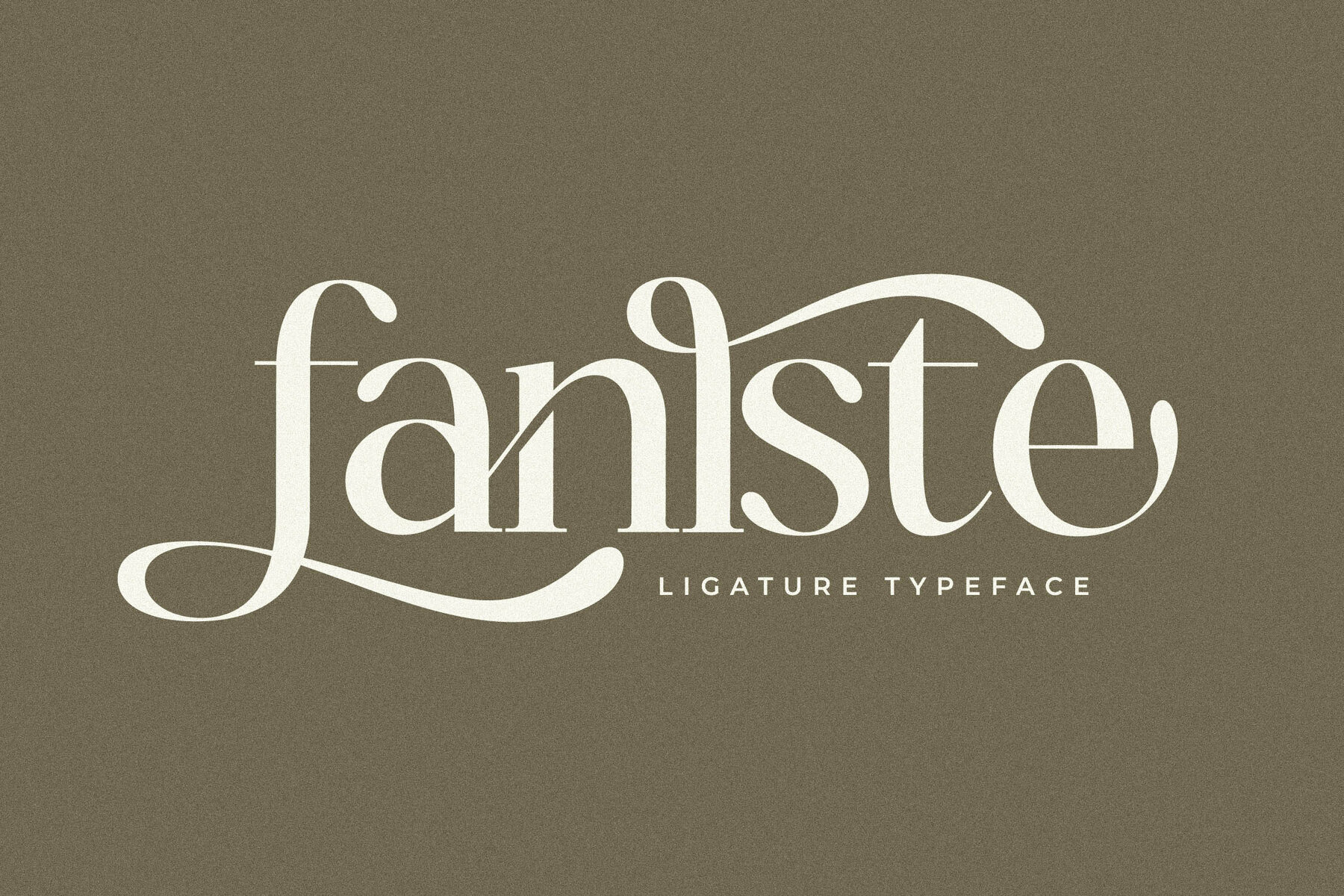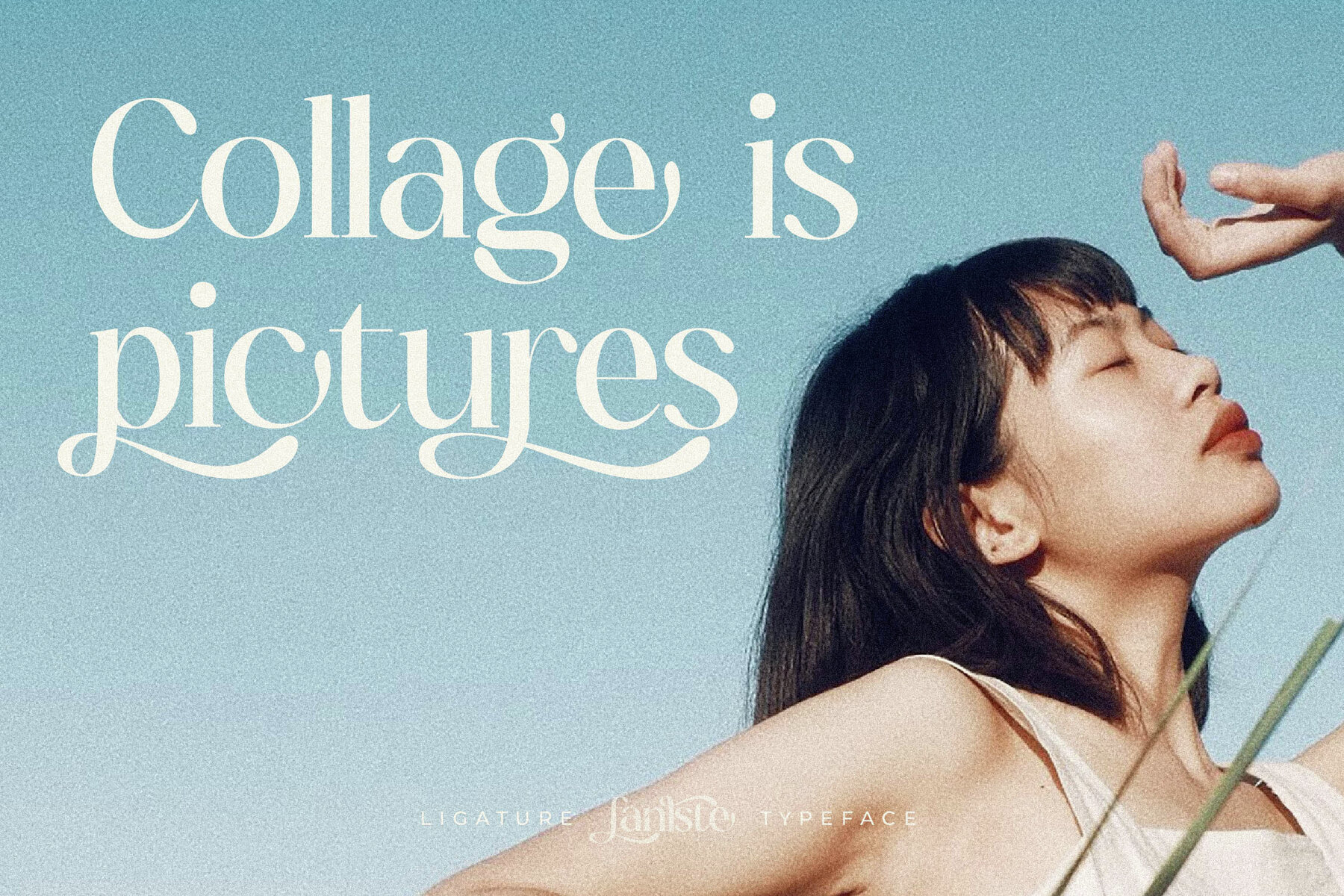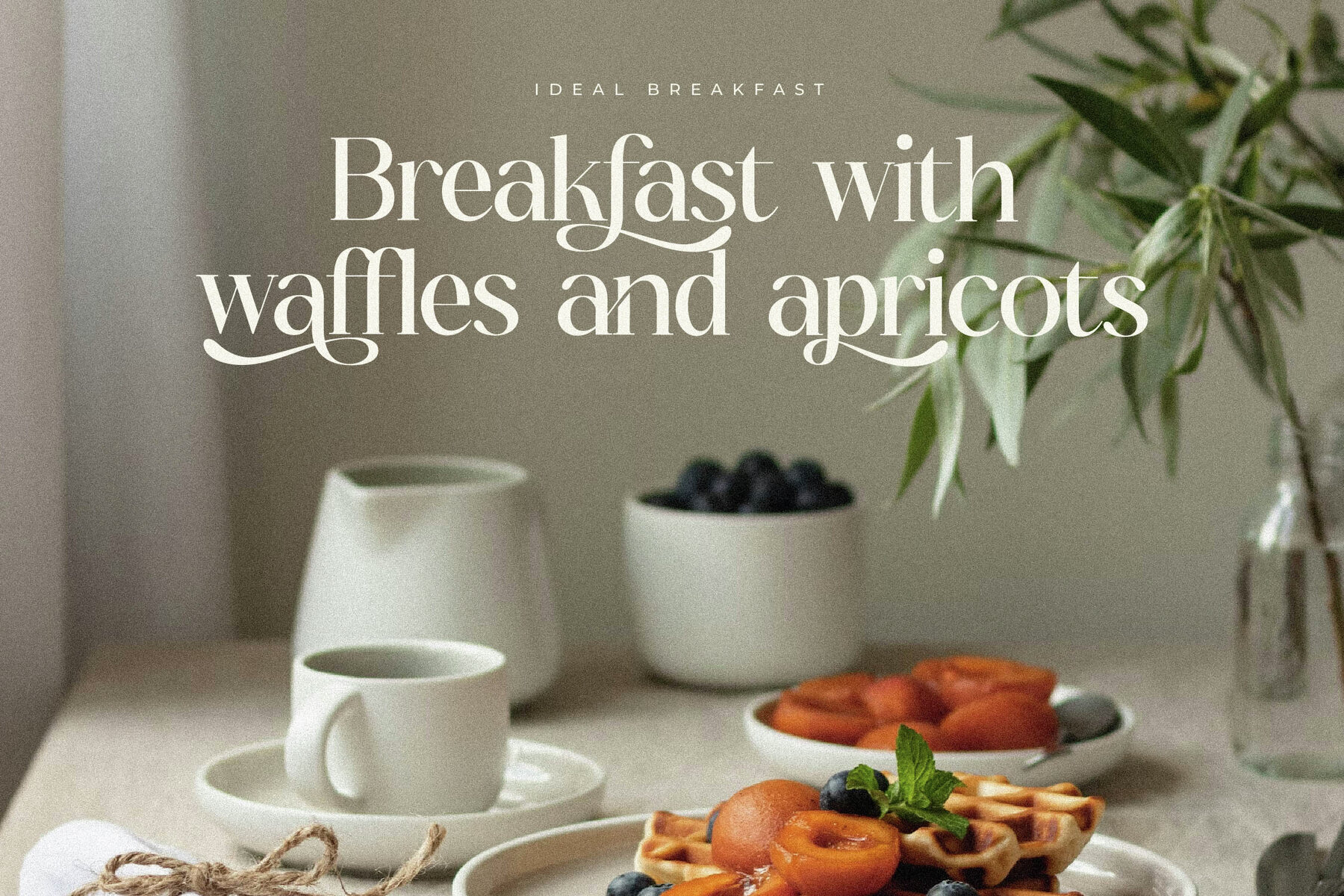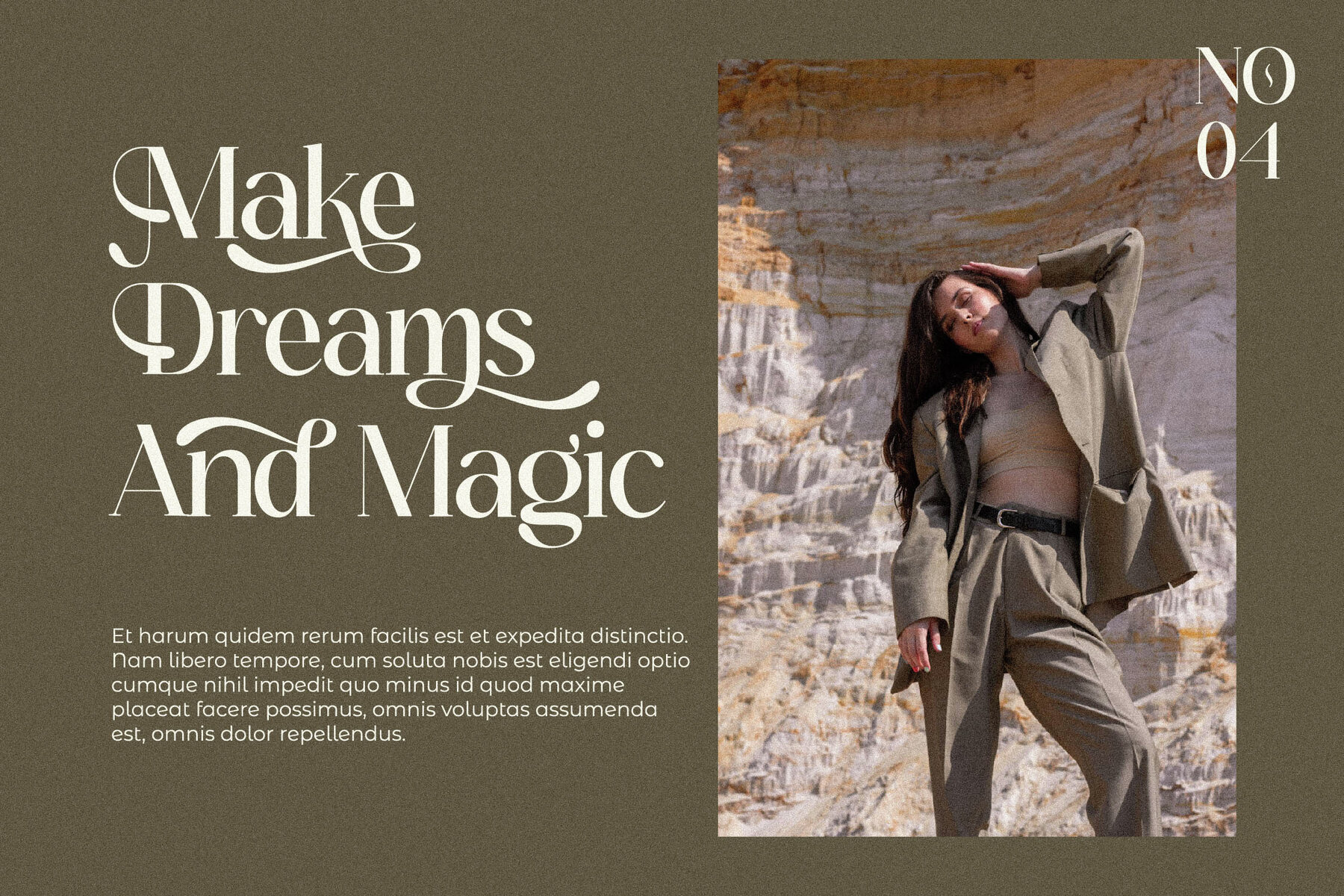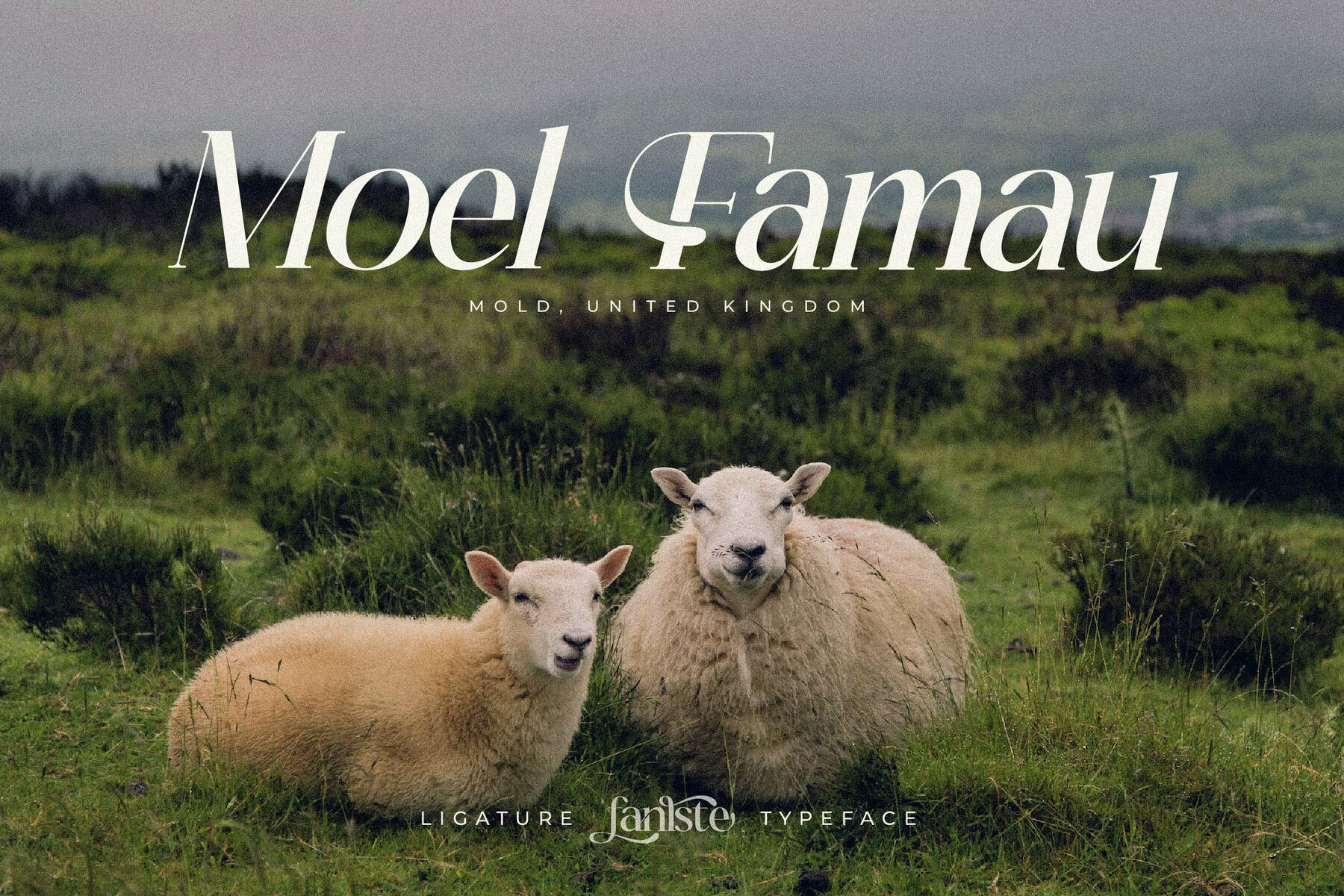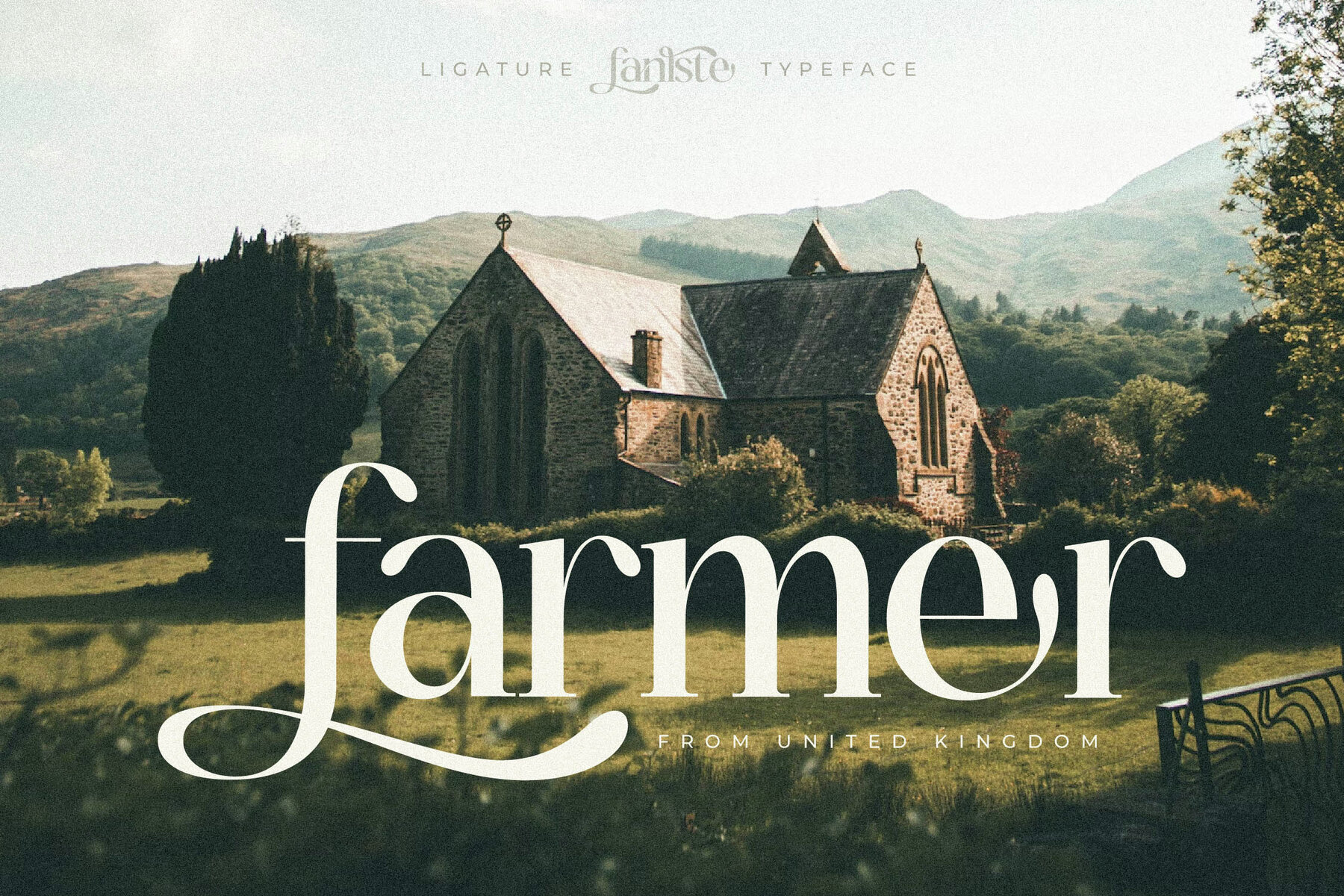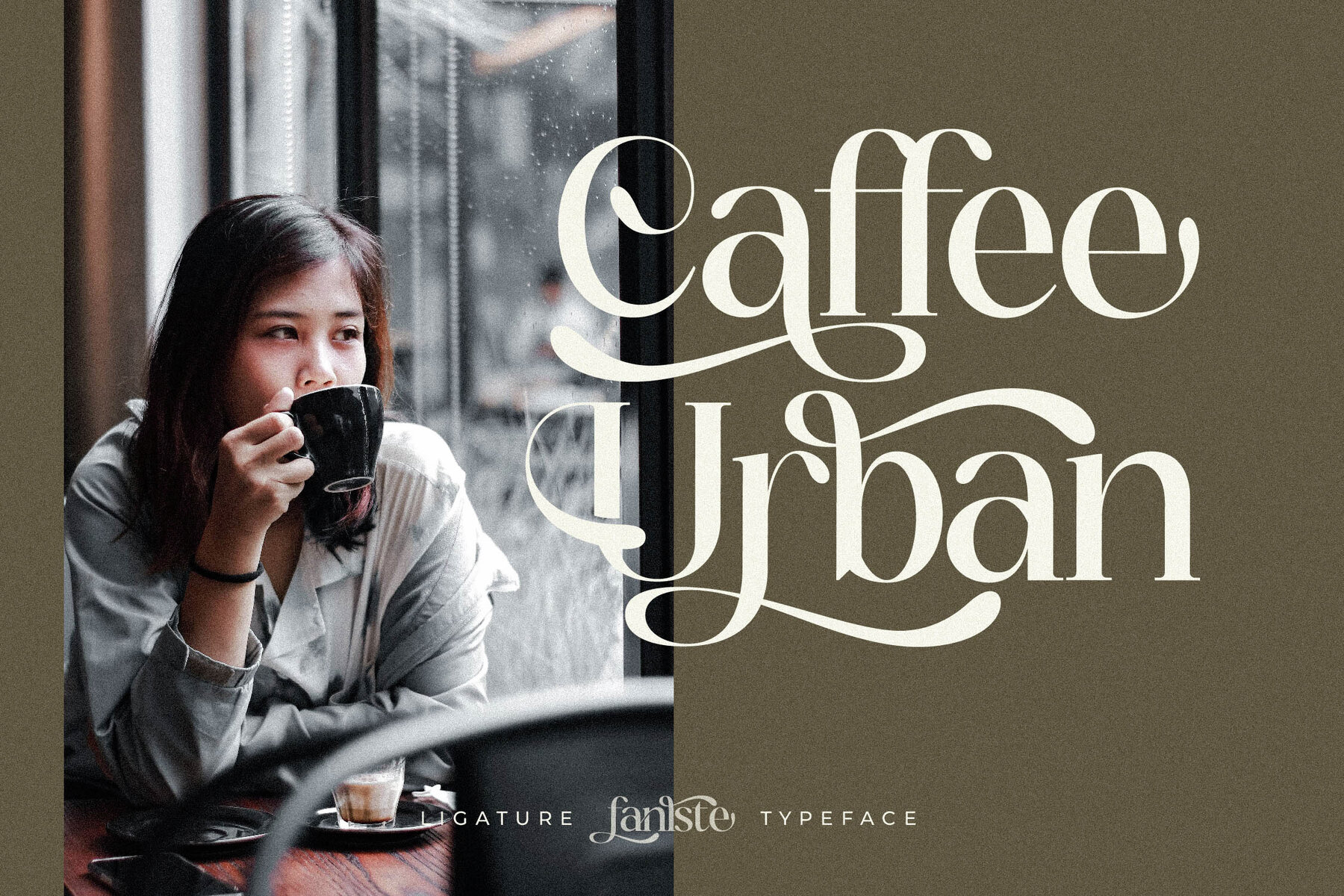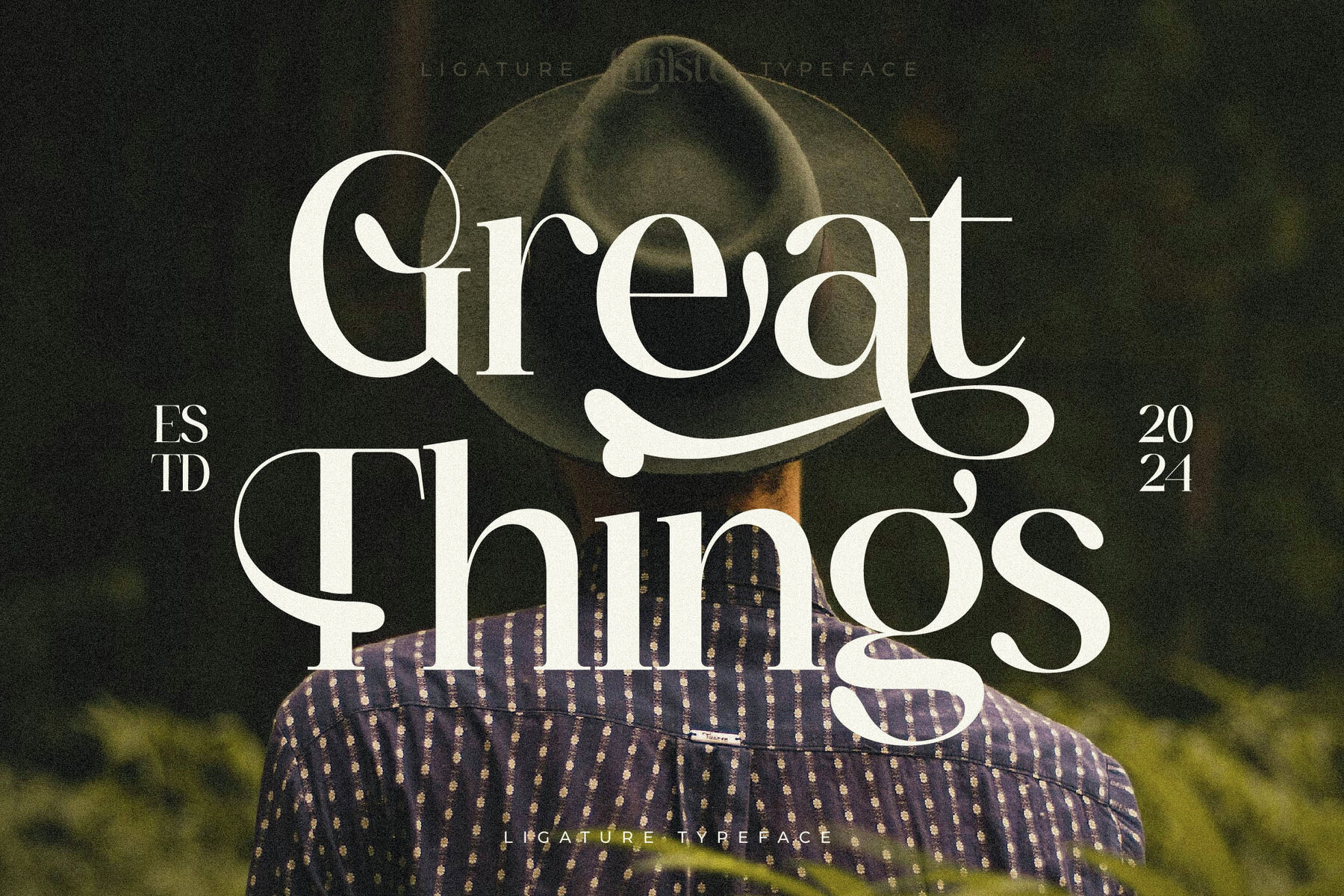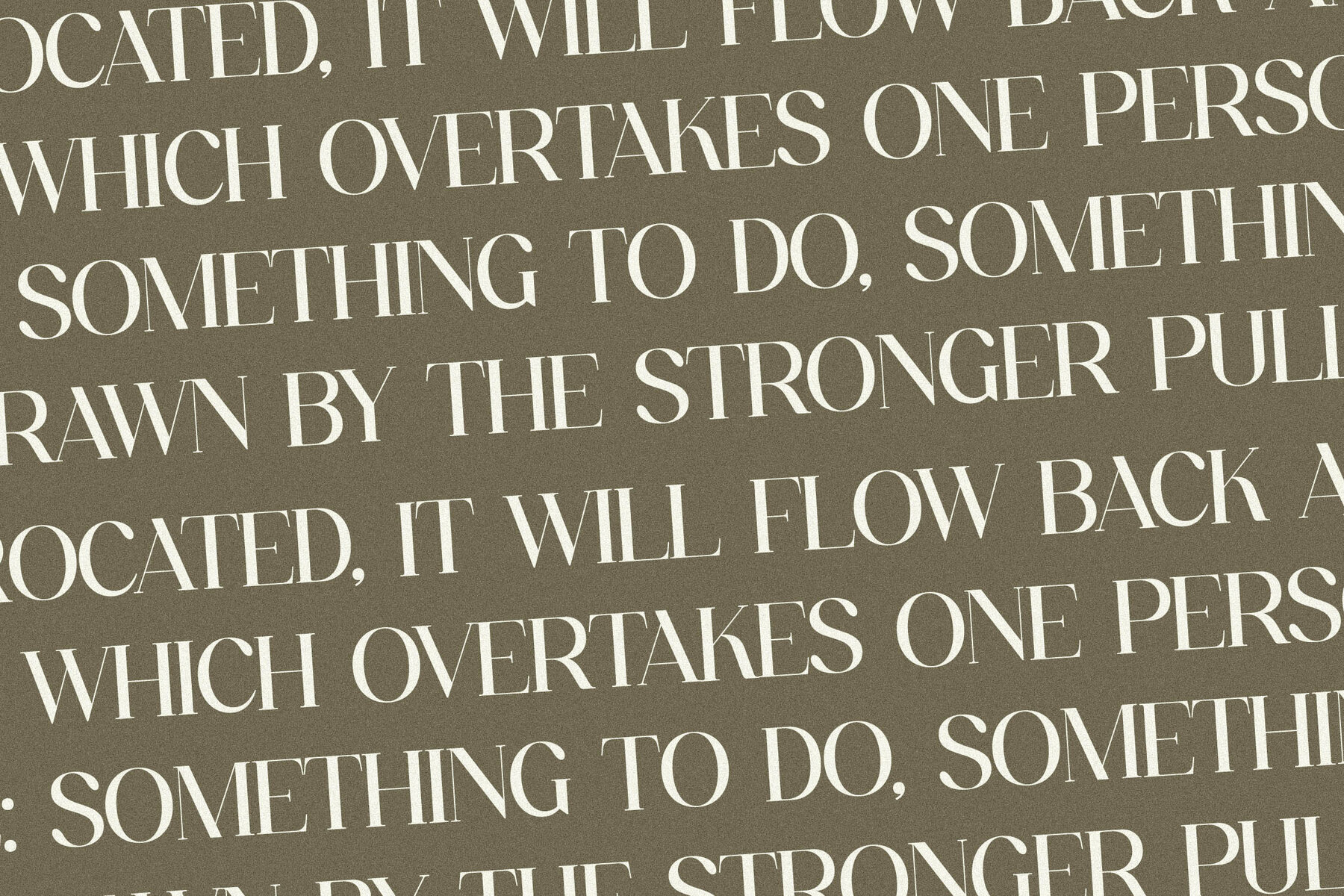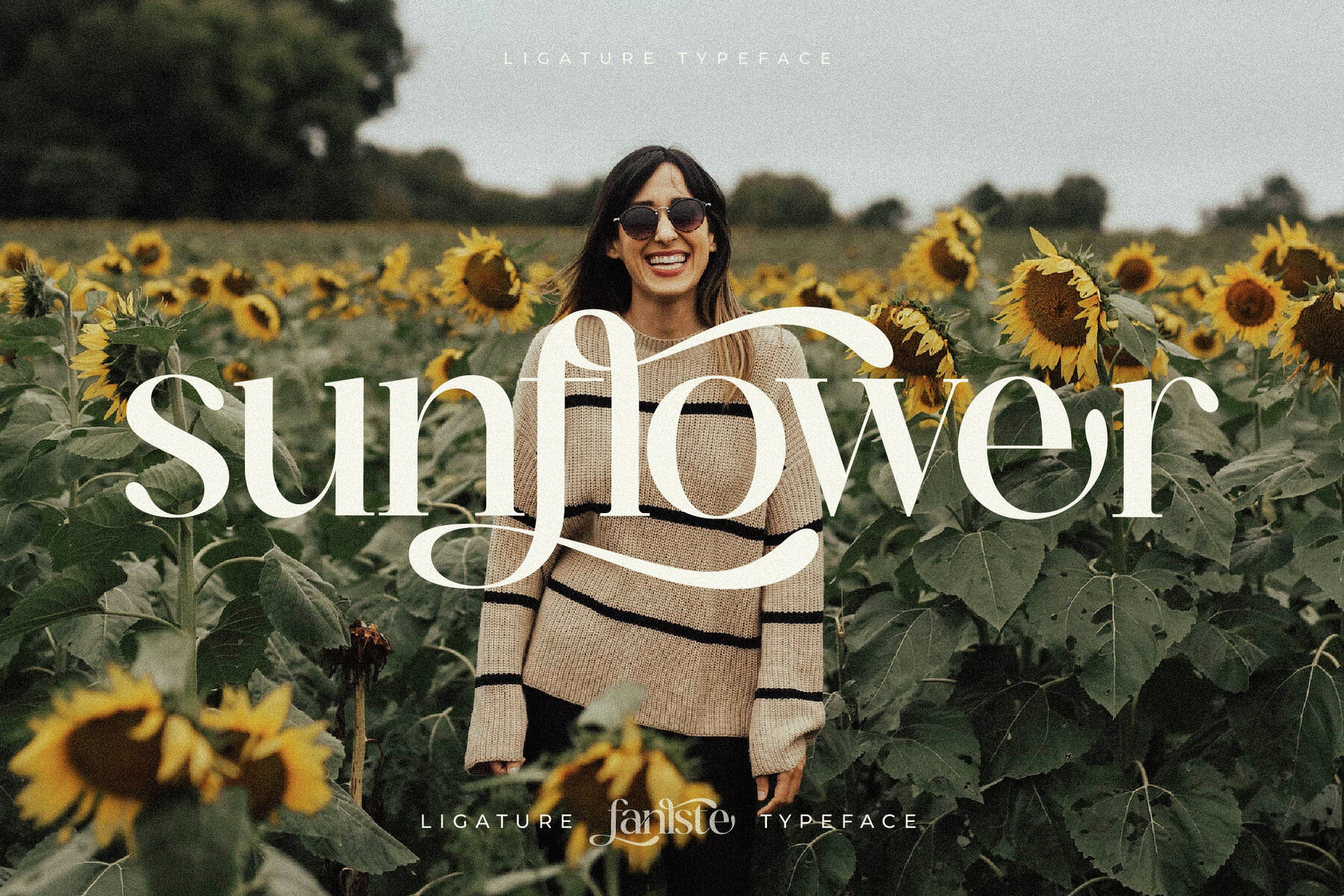
Fanlste Font
Discover the elegance of the Fanlste typeface, a modern classic by Storytype Studio that seamlessly blends tradition with contemporary design. Ideal for creating stunning logos, captivating book or movie titles, refined fashion branding, and sophisticated magazine layouts, Fanlste exudes luxury in every character. Its versatility makes it equally perfect for clothing labels, inspiring quotes, and beyond. This typeface is designed to elevate any project with its distinct style.Fanlste Typeface